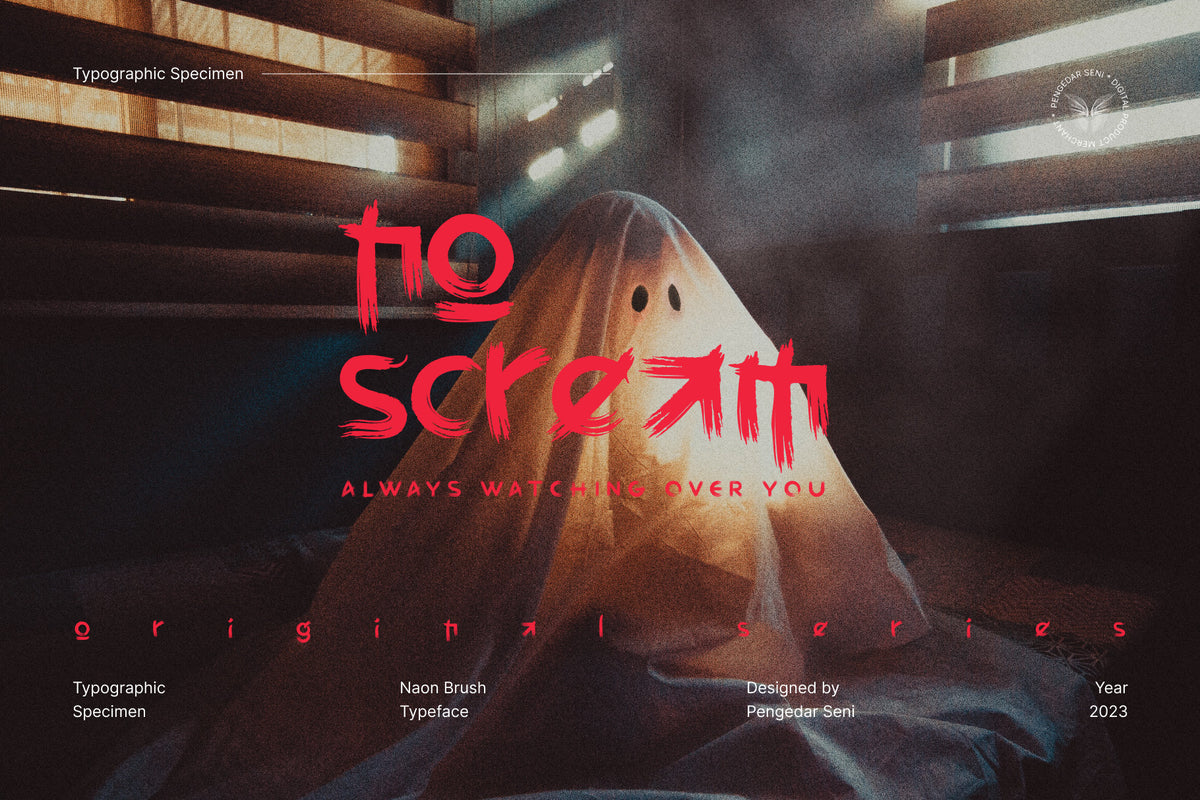
Naon Brush Typeface
Naon – Raw Energy Brush Typeface
Naon is a bold, expressive brush typeface designed for horror, action, and rock-themed designs. Crafted with raw strokes of brush and ink, Naon embodies unfiltered emotion and relentless energy, making it perfect for album covers, movie posters, extreme sports branding, and rebellious visuals.
The Story Behind Naon
The name Naon carries a deep, untamed spirit—a visual echo of chaos, passion, and raw intensity. Each letter is meticulously drawn, fueled by the intensity of a broken heart, forming a typeface that speaks in screams, echoes in roars, and bleeds pure attitude.
✅ Dual Font Styles – Features two distinct styles: Uppercase for power & impact, lowercase for raw fluidity.
✅ Handcrafted Brush Strokes – Every letter exudes wild imperfection, bringing gritty authenticity to your designs.
✅ Perfect for Hard Themes – Ideal for metal band logos, horror movie titles, action-packed gaming visuals, and streetwear branding.
✅ Mix & Match Creativity – Seamlessly combine uppercase & lowercase to create unique, chaotic letterforms.
✅ Versatile & Edgy – Whether for merch, posters, editorial headlines, or underground branding, Naon delivers an intense, high-impact presence.
Naon is a brush typeface with handcrafted ink strokes, featuring separate uppercase and lowercase styles that can be combined. It includes bold, textured letterforms suited for horror, action, and rock-themed visual designs.